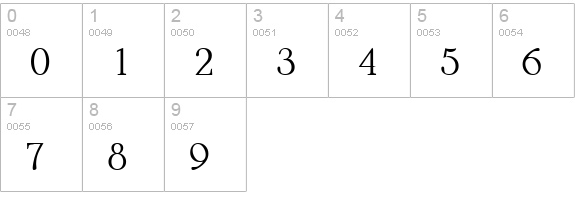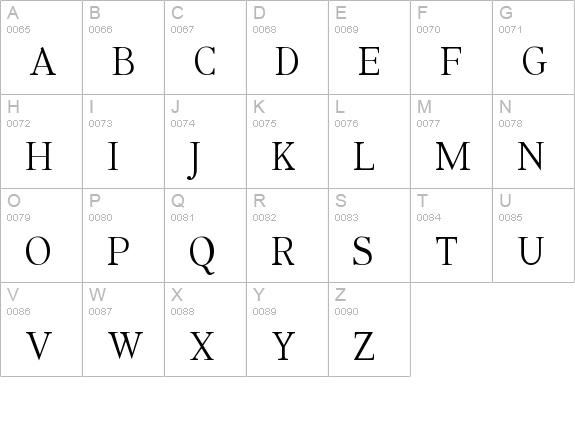
The Aabced Roman font is a stunning typeface, meticulously crafted to bring elegance and sophistication to any design project. With its clean lines and timeless appeal, this font is perfect for adding a touch of class to logos, headlines, invitations, and more. What sets Aabced Roman apart is not just its exquisite design, but also the fact that it is available for free. Yes, you read that right! This exceptional font can be freely downloaded at FontsMarket.com, allowing both professional designers and enthusiasts alike to access its beauty without any cost. Whether you're working on a corporate presentation, a wedding invitation, or a creative branding project, Aabced Roman will elevate your design to new heights. Its versatility shines through with its legible letterforms and balanced spacing, ensuring that your message is conveyed effortlessly and effectively. Don't miss out on the opportunity to enhance your designs with this remarkable font. Download Aabced Roman for free at FontsMarket.com and unlock a world of endless possibilities. With its timeless appeal and accessibility, this font will undoubtedly become a staple in your design toolkit.